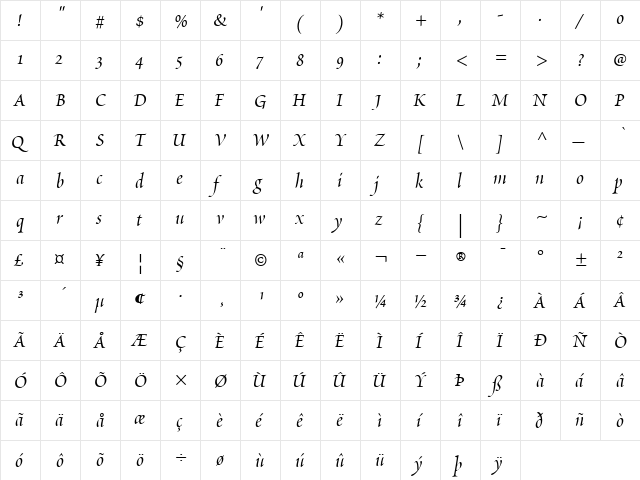
PoeticaChanceryII RomanItalic
Design Context for PoeticaChanceryII Typeface
PoeticaChanceryII offers clean, dependable letterforms without strong stylistic allegiance, making it a practical choice for designers who need flexibility. Its italic angle brings a sense of urgency and motion to the letterforms.
Pro Tip: Use PoeticaChanceryII for emphasis, pull quotes, and subheadings where its slanted energy can add rhythm to the layout.